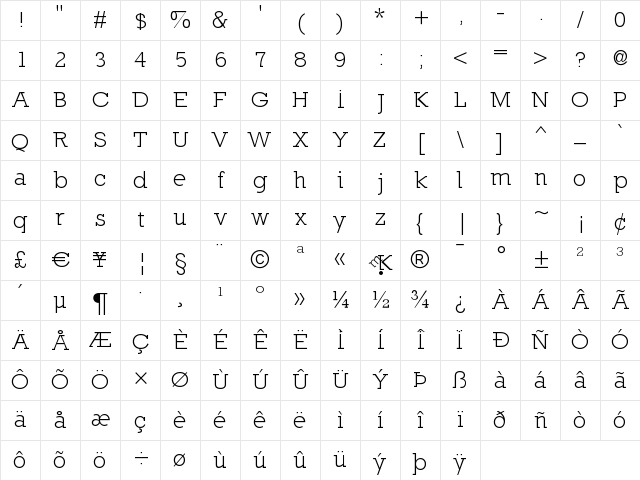
Nilland-SmallCaps Regular Free Font
Nilland-SmallCaps Regular
Design Context for Nilland-SmallCaps
Nilland-SmallCaps is a composed and adaptable typeface that performs quietly and consistently across a wide range of design contexts.
Pro Tip: Use Nilland-SmallCaps in both headline and body roles to test its range before committing to a single application.